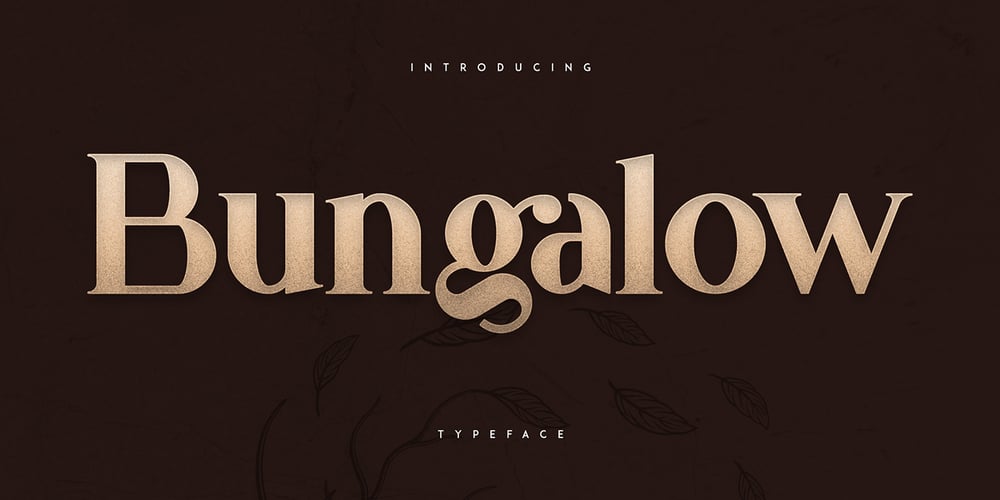
Bungalow VP
Bungalow VP font
Bungalow VP Font Family was designed by Vladimir Fedotov, Plamen Petrov and published by VP Creative Shop. Bungalow VP contains 7 styles and family package options. Introducing Bungalow Typeface – 9 fontsBungalow is classic, vintage typeface with 3 serif, 3 display and 3 headline fonts to enchant your next project. They are loaded alternate glyphs, ligatures and multilingual support. Very versatile fonts that works great in large and small sizes.Bungalow is perfect for branding projects, home-ware designs, product packaging, magazine headers – or simply as a stylish text overlay to any background image. Uppercase, lowercase, numeral, punctuation & Symbol Serif – Light, Regular, Bold Display – Light, Regular, Bold Headline – Light, Regular, Bold Alternate glyphs Ligatures Multilingual support How to access alternate glyphs?To access alternate glyphs in Adobe InDesign or Illustrator, choose Window Type & Tables GlyphsIn Photoshop, choose Window Glyphs. In the panel that opens, click the Show menu and choose Alternates for Selection. Double-click an alternate’s thumbnail to swap them out.Feel free to contact me if you have any questions!Mock ups and backgrounds used are not included.Thank you! Enjoy!